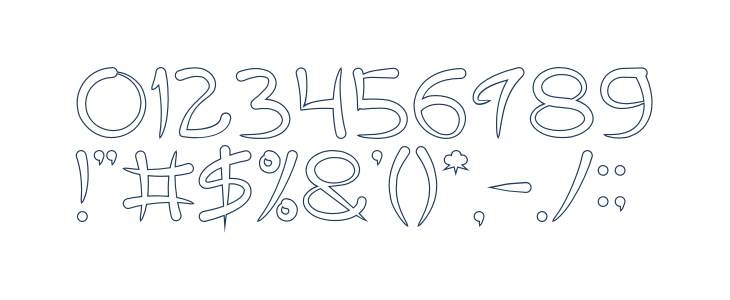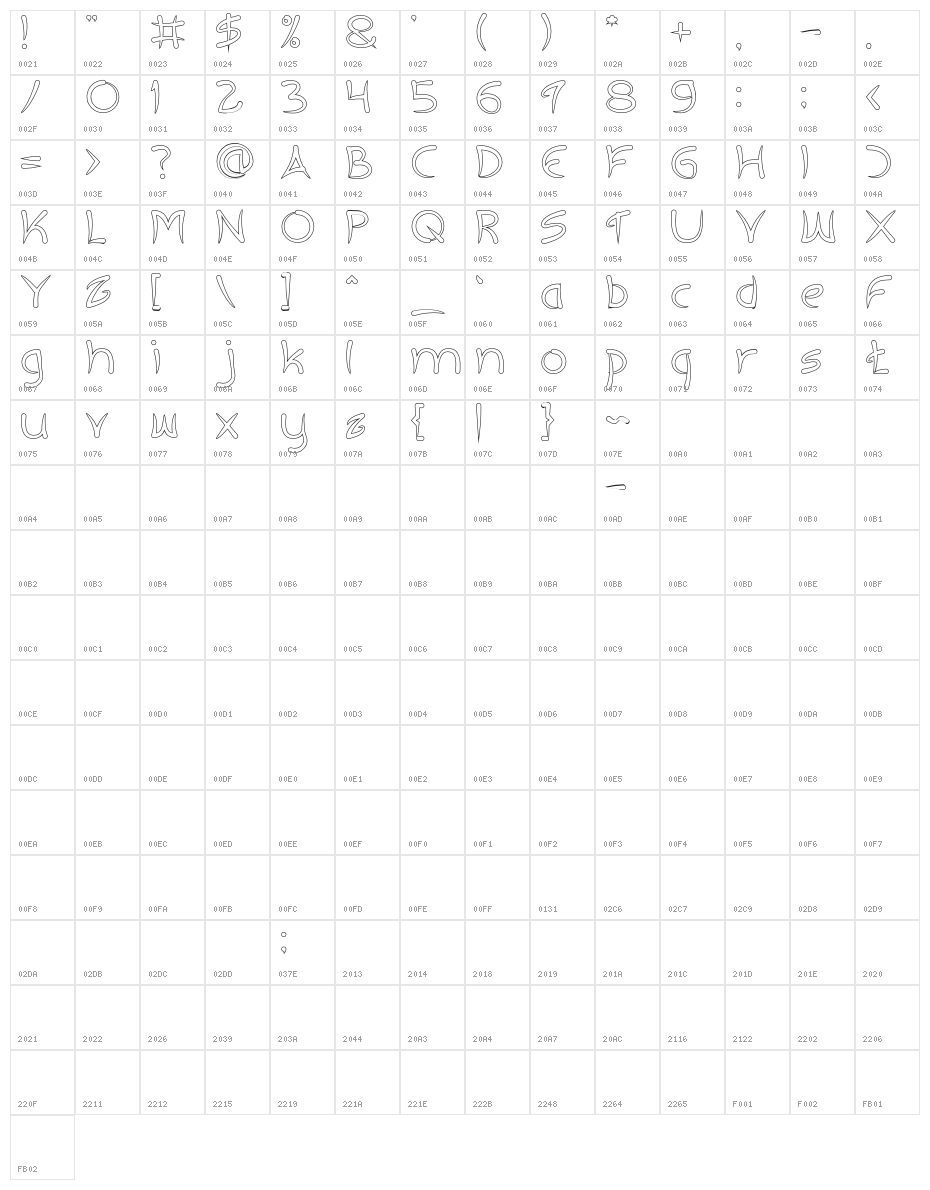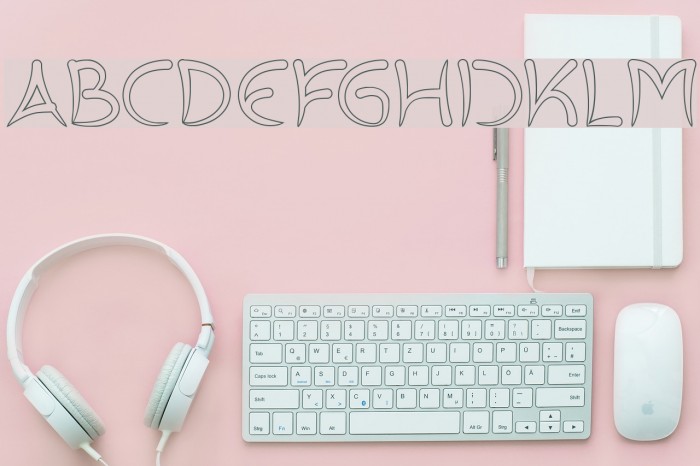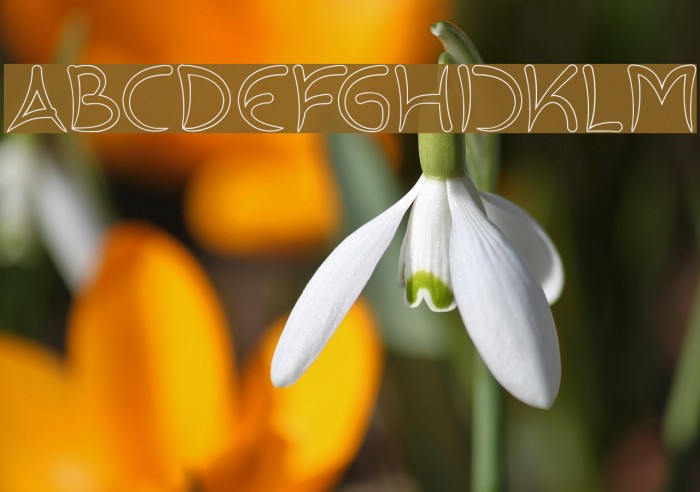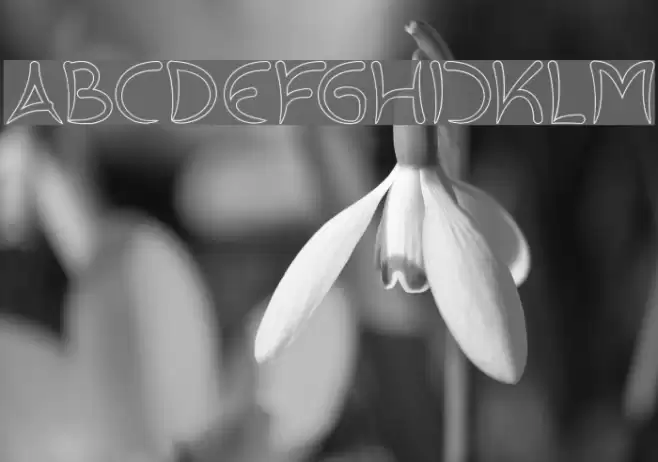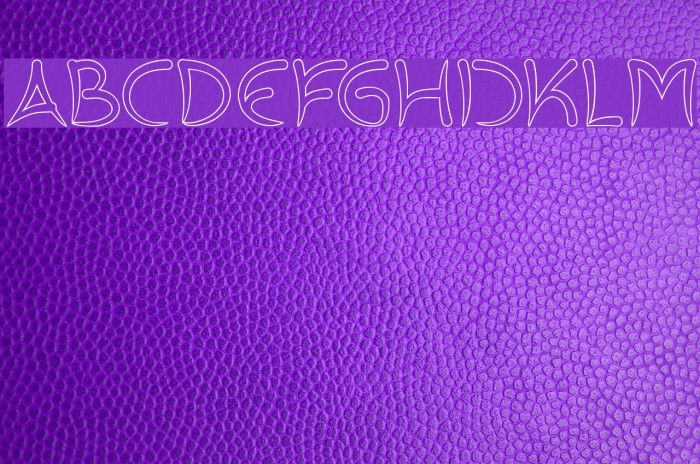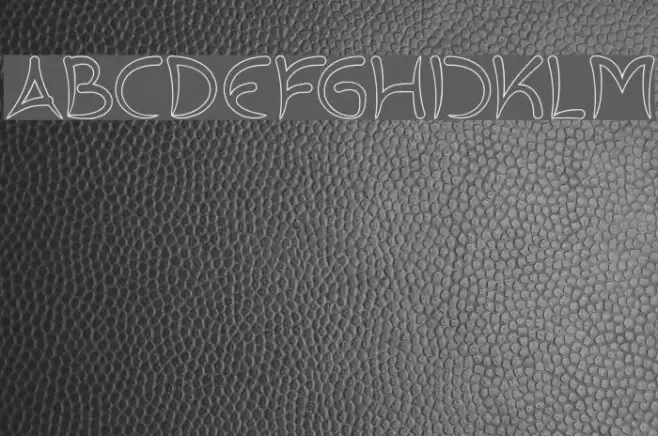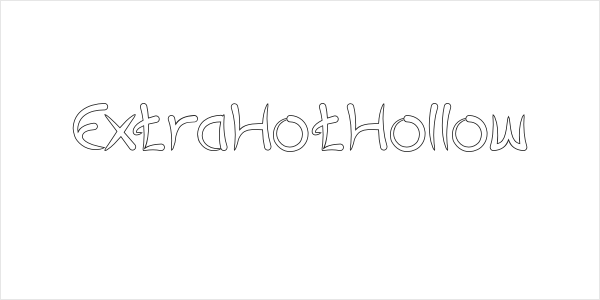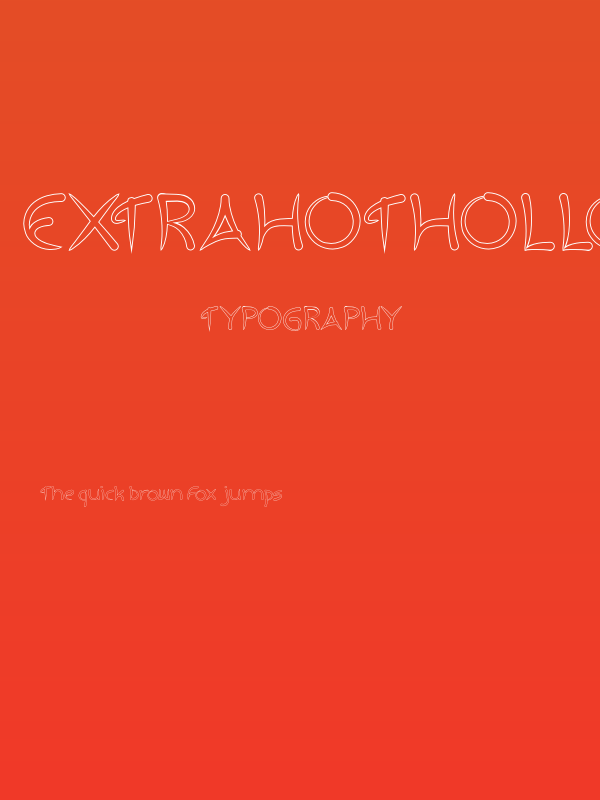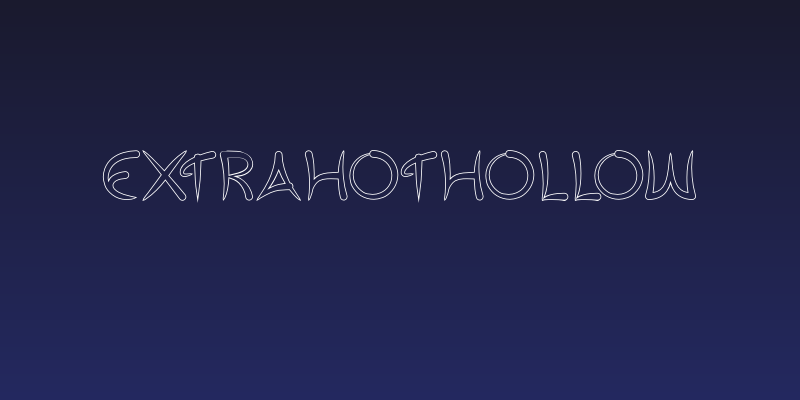
ExtraHotHollow Font
ExtraHotHollow Description
This font features a unique hollow design with a playful and artistic flair. Each character is outlined, giving it a light and airy appearance. The strokes are consistent in width, creating a harmonious balance across all letters and numbers. The uppercase and lowercase letters maintain a cohesive style, with rounded edges and smooth curves that add to its approachable and friendly look. The numerals and special characters follow the same design principles, ensuring uniformity throughout the set. This font's distinctive style makes it stand out, perfect for creative projects that require a touch of whimsy.
| Overall Style | Playful, Artistic |
| Proposed Projects | Ideal for children's books, playful branding, creative posters, and artistic invitations. |